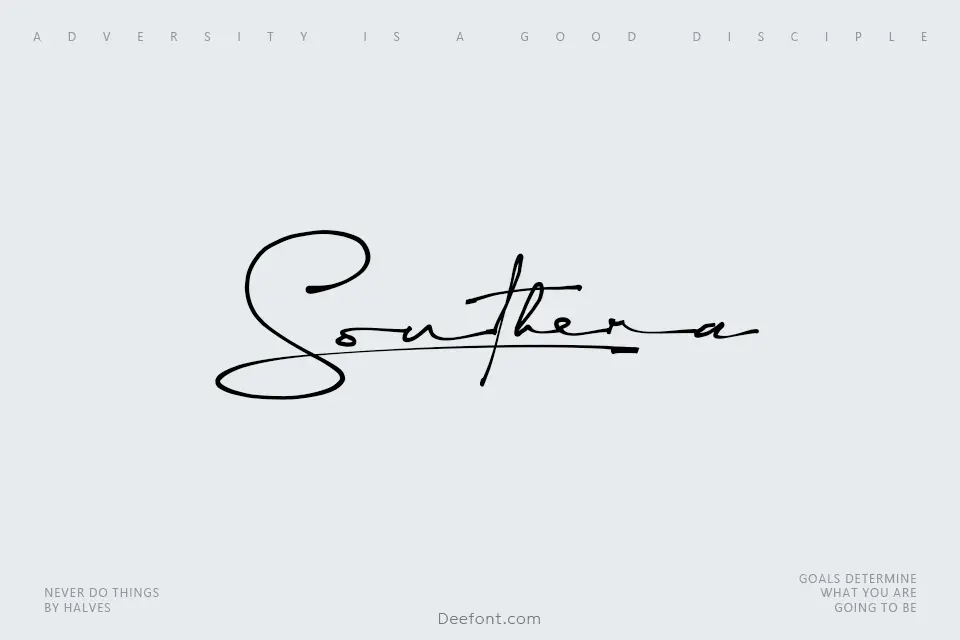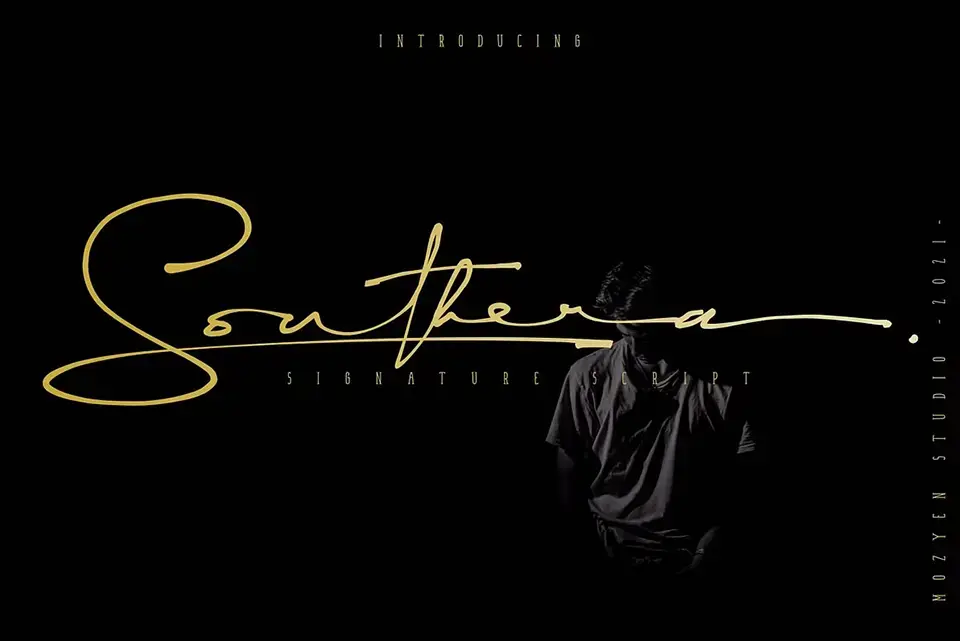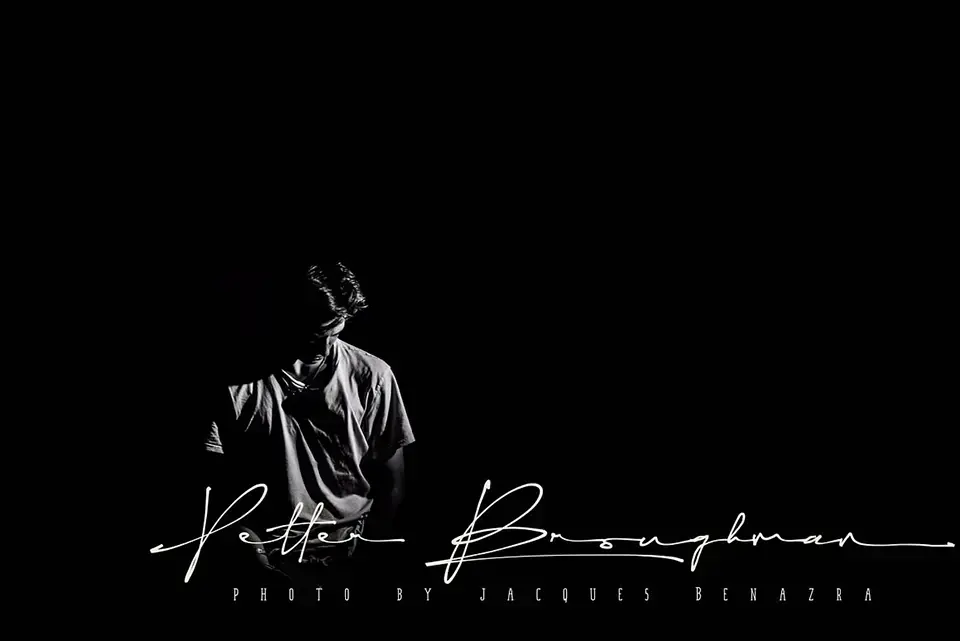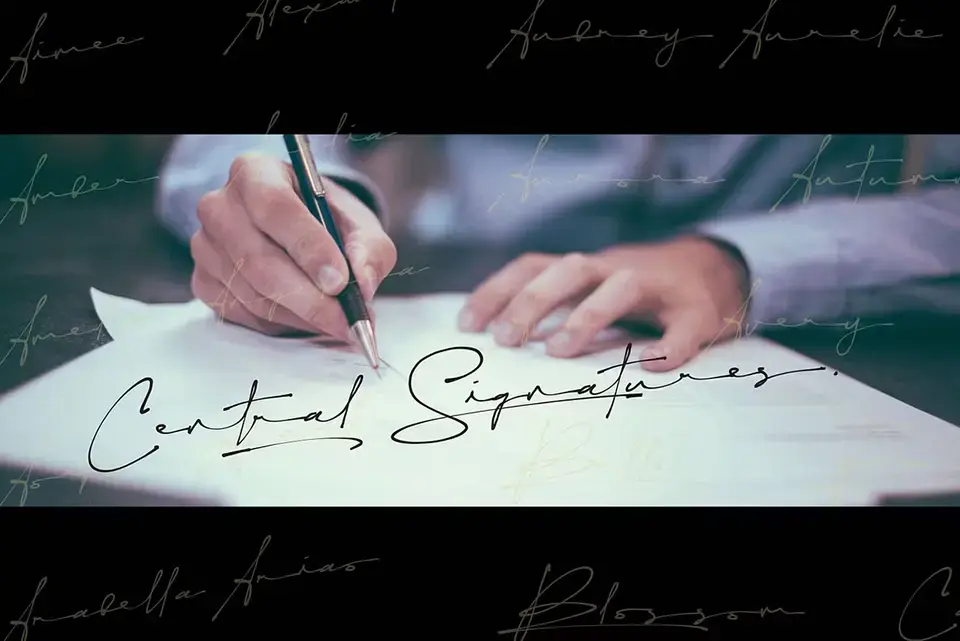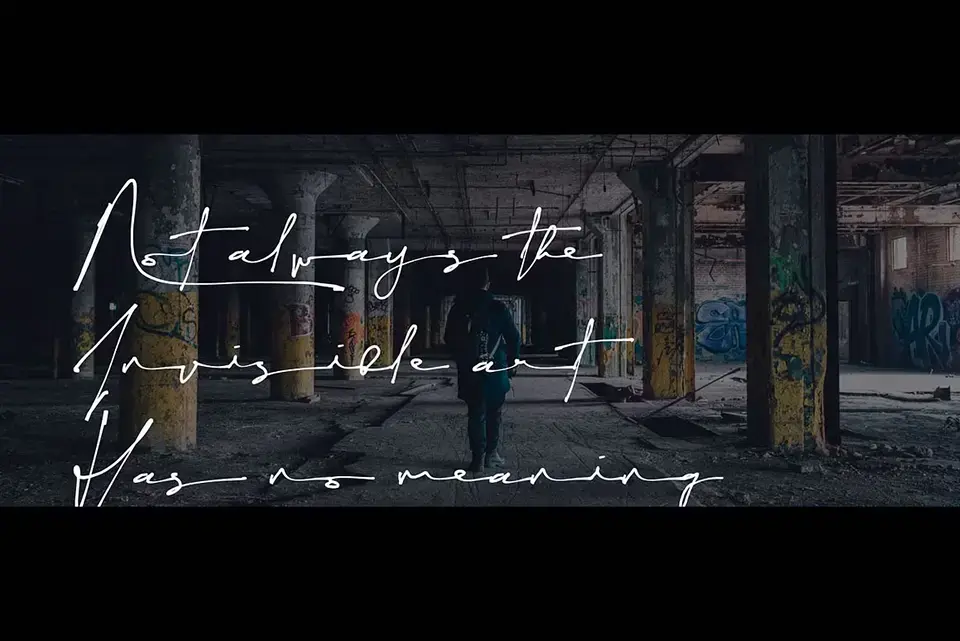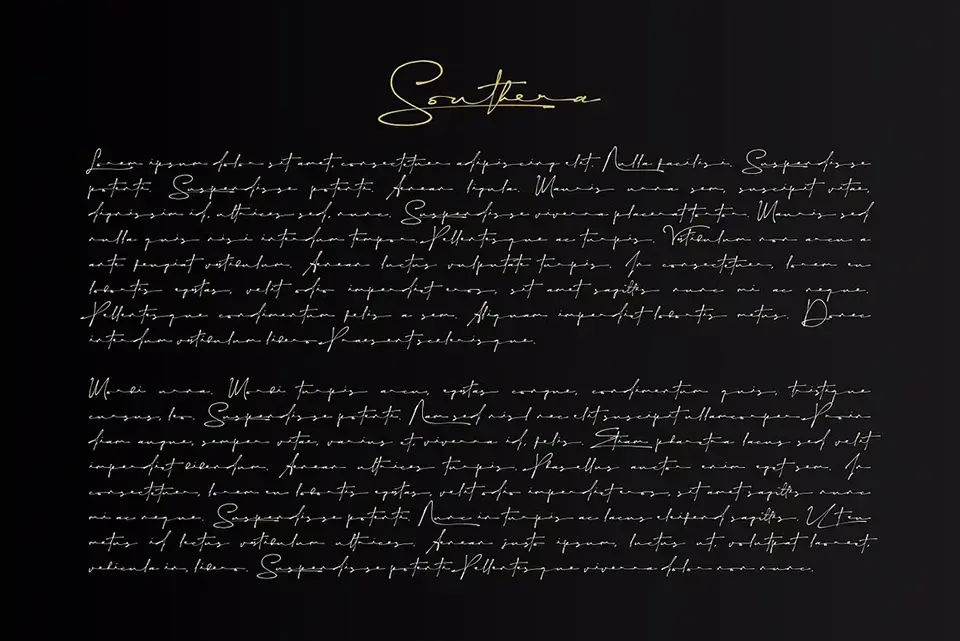
Southera Font
Southera is a stylish and delicate handwritten script font featuring clean, thin lines and smooth curves that evoke a modern calligraphy aesthetic. This elegant signature typeface excels in creating sophisticated designs for wedding invitations, feminine branding, luxury packaging, and decorative headers. With its natural flowing strokes and refined character forms, Southera brings authenticity and charm to logos, greeting cards, and creative typography projects. The font’s graceful letterforms and carefully balanced proportions make it ideal for fashion brands, beauty products, and any design requiring a touch of elegance and personal expression. Its 160 glyphs offer versatility for multilingual applications, making it a go-to choice for designers seeking refined handwritten aesthetics without sacrificing legibility.